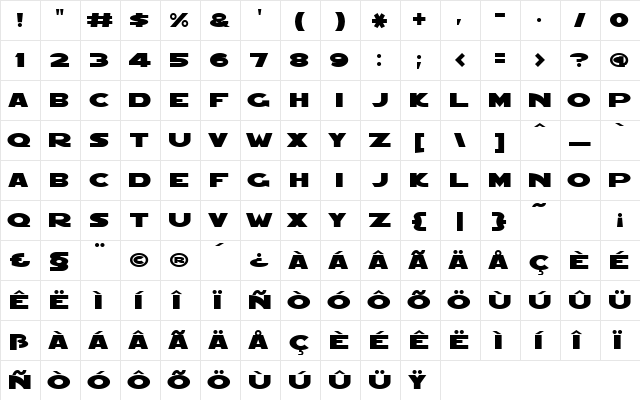
RedFive Regular
Design Context for RedFive Typeface
RedFive offers clean, dependable letterforms without strong stylistic allegiance, making it a practical choice for designers who need flexibility.